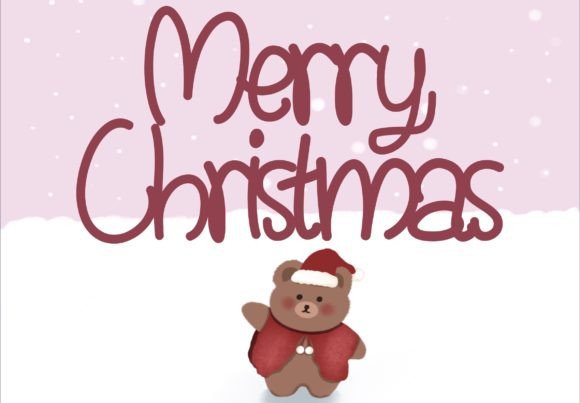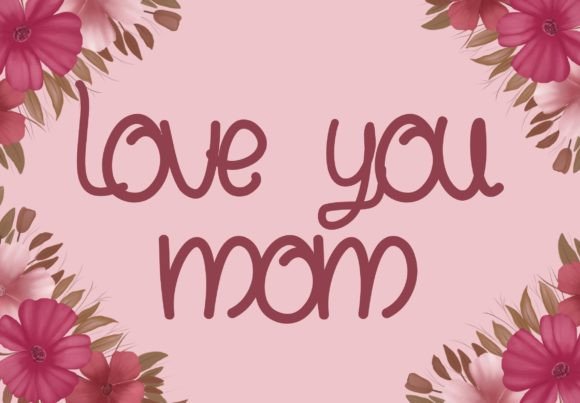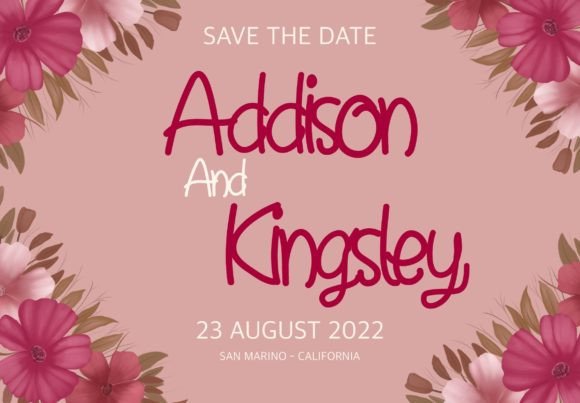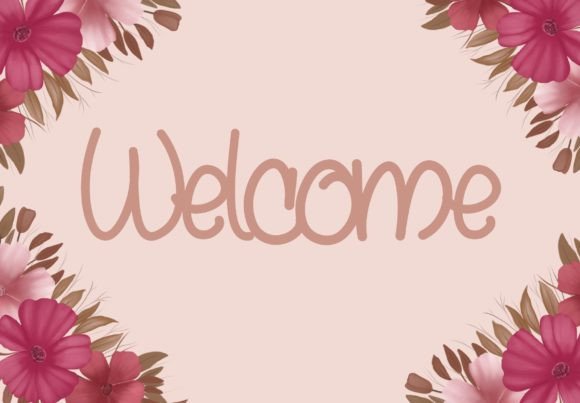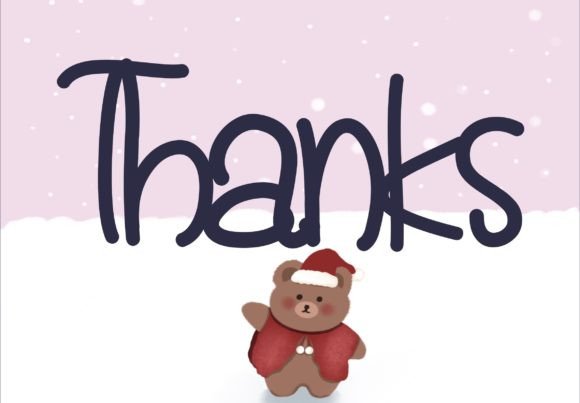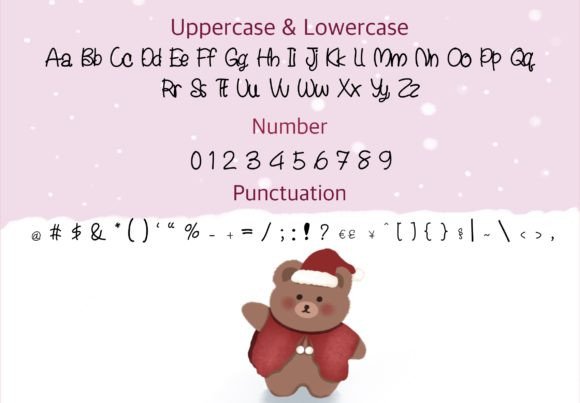
Bear Font: The Perfect Addition to Your Design Projects
Are you looking for a font that can add a touch of warmth and friendliness to your design projects? Look no further than Bear Font! This lovely and cute handwritten font is perfect for a wide range of applications, from Christmas projects to wedding invitations, and from social media posts to product packaging.
What is Bear Font?
Bear Font is a unique and charming handwritten font that is designed to bring a sense of coziness and approachability to your designs. Its playful and whimsical feel makes it an ideal choice for designers and crafters who want to add a personal touch to their work.
Uses of Bear Font
Bear Font is a versatile font that can be used for a variety of purposes, including:
- Christmas Projects: Bear Font is perfect for creating festive and fun Christmas projects, such as holiday cards, gift tags, and decorations.
- Invitations: Whether you’re planning a wedding, birthday party, or baby shower, Bear Font is a great choice for creating invitations that are both elegant and playful.
- Social Media Posts: Add a personal touch to your social media posts with Bear Font, which is perfect for creating engaging and eye-catching content.
- Logos and Branding: Bear Font can be used to create unique and memorable logos and branding materials that reflect your company’s personality and values.
- T-Shirts and Merchandise: Create fun and stylish t-shirts, mugs, and other merchandise with Bear Font, which is perfect for designers and crafters who want to create unique and personalized products.
- Posters and Displays: Bear Font is a great choice for creating eye-catching posters and displays that grab attention and communicate your message in a friendly and approachable way.
- Product Packaging: Add a touch of warmth and personality to your product packaging with Bear Font, which is perfect for creating labels, stickers, and other packaging materials.
Why Choose Bear Font?
There are many reasons why Bear Font is a great choice for designers and crafters, including:
- Unique and Handwritten: Bear Font is a unique and handwritten font that adds a personal touch to your designs.
- Easy to Read: Despite its playful feel, Bear Font is easy to read and understand, making it perfect for body text and other applications where legibility is important.
- Versatile: Bear Font can be used for a wide range of applications, from formal to informal, and from digital to print.
- Cute and Friendly: Bear Font has a cute and friendly feel that makes it perfect for designs that need to communicate a sense of warmth and approachability.
Tips for Using Bear Font
Here are some tips for getting the most out of Bear Font:
- Use it with Other Fonts: Bear Font pairs well with other fonts, so don’t be afraid to experiment with different combinations to create a unique look.
- Experiment with Colors: Bear Font looks great in a variety of colors, so try experimenting with different hues and shades to find the perfect look for your design.
- Use it for Headlines and Titles: Bear Font is perfect for headlines and titles, where its playful feel can really shine.
- Add some Personality: Bear Font is all about adding a personal touch to your designs, so don’t be afraid to get creative and add your own personality to your work.
Bear Font is a lovely and cute handwritten font that is perfect for designers and crafters who want to add a touch of warmth and friendliness to their designs. With its versatile and easy-to-read design, Bear Font is perfect for a wide range of applications, from Christmas projects to wedding invitations, and from social media posts to product packaging. So why not give Bear Font a try and see how it can add a personal touch to your next design project?